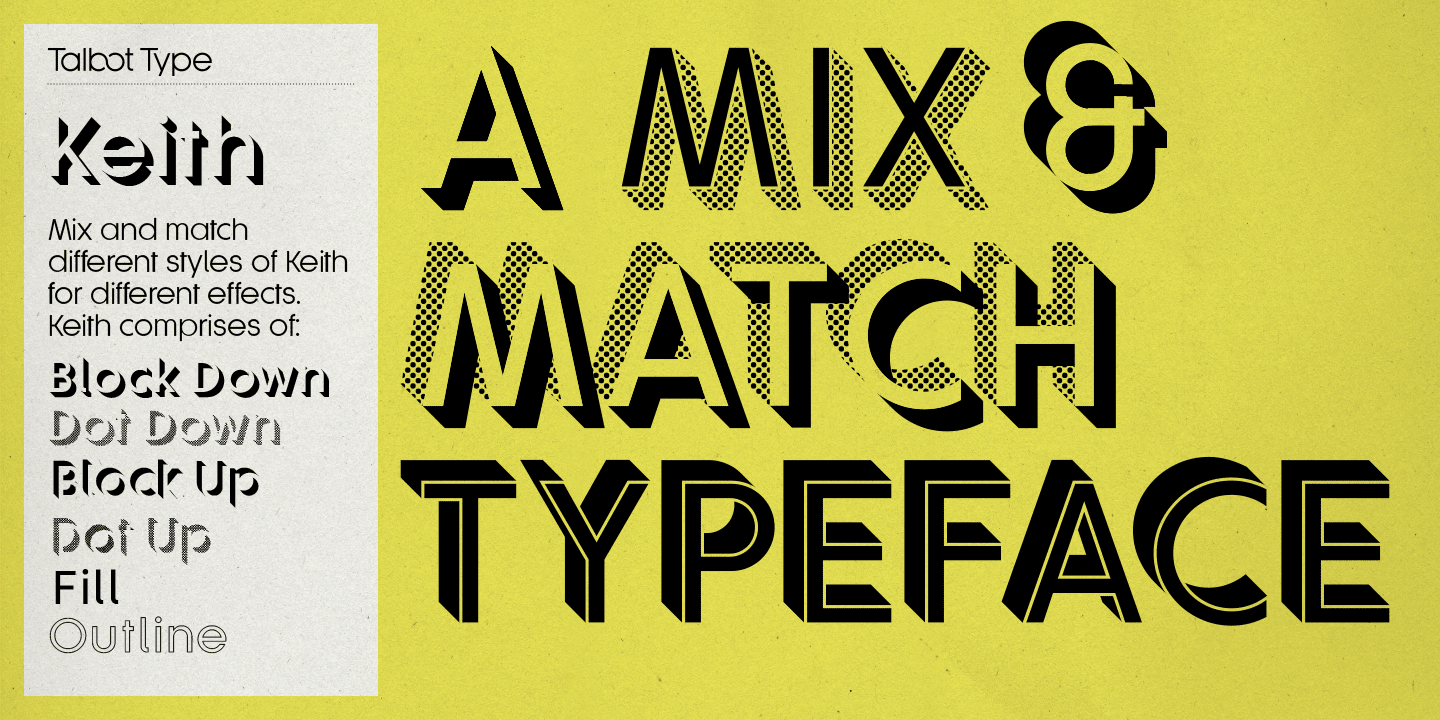
Keith Font is perfect for rock band logos, music venue signage, vintage concert poster designs, independent record label branding, guitar shop marketing, classic rock festival promotions, musician portfolio layouts, and edgy entertainment venue communications.
Keith Font is exciting because it channels the raw energy and rebellious spirit of rock and roll legends with its bold, unapologetic letterforms that seem to scream from amplifiers and pulse with the heartbeat of electric guitars. The typeface embodies the timeless attitude of rock icons and musical rebellion, creating an immediate sense of authentic cool and musical credibility that resonates with audiences who live and breathe rock culture.
Keith Font family includes Regular, Bold, Light, and Distressed variants, complemented by rock-inspired texture effects and musical decorative elements, providing designers with powerful typography tools for creating communications that honor rock heritage while capturing the attention of modern music lovers.
Whether you're developing a rock band's brand identity, designing music festival materials, or creating authentic music industry content, Keith Font Free Download delivers unmatched rock authenticity and rebellious appeal. This dynamic typeface perfectly captures the essence of rock and roll attitude while maintaining the readability needed for contemporary music marketing and promotional materials. The font's aggressive character variations and rhythmic energy make it particularly effective for brands that celebrate musical passion, artistic rebellion, and the kind of authentic rock spirit that transcends generations. Music industry professionals consistently select Keith Font when projects require typography that communicates raw talent, musical integrity, and the kind of rock and roll attitude that transforms ordinary performances into legendary experiences, making it indispensable for music venue branding, band merchandise design, and any application where powerful typography can capture the electric energy of live music and the enduring power of rock culture that continues to inspire musicians and fans to embrace their rebellious spirit and express themselves through the universal language of rock and roll.